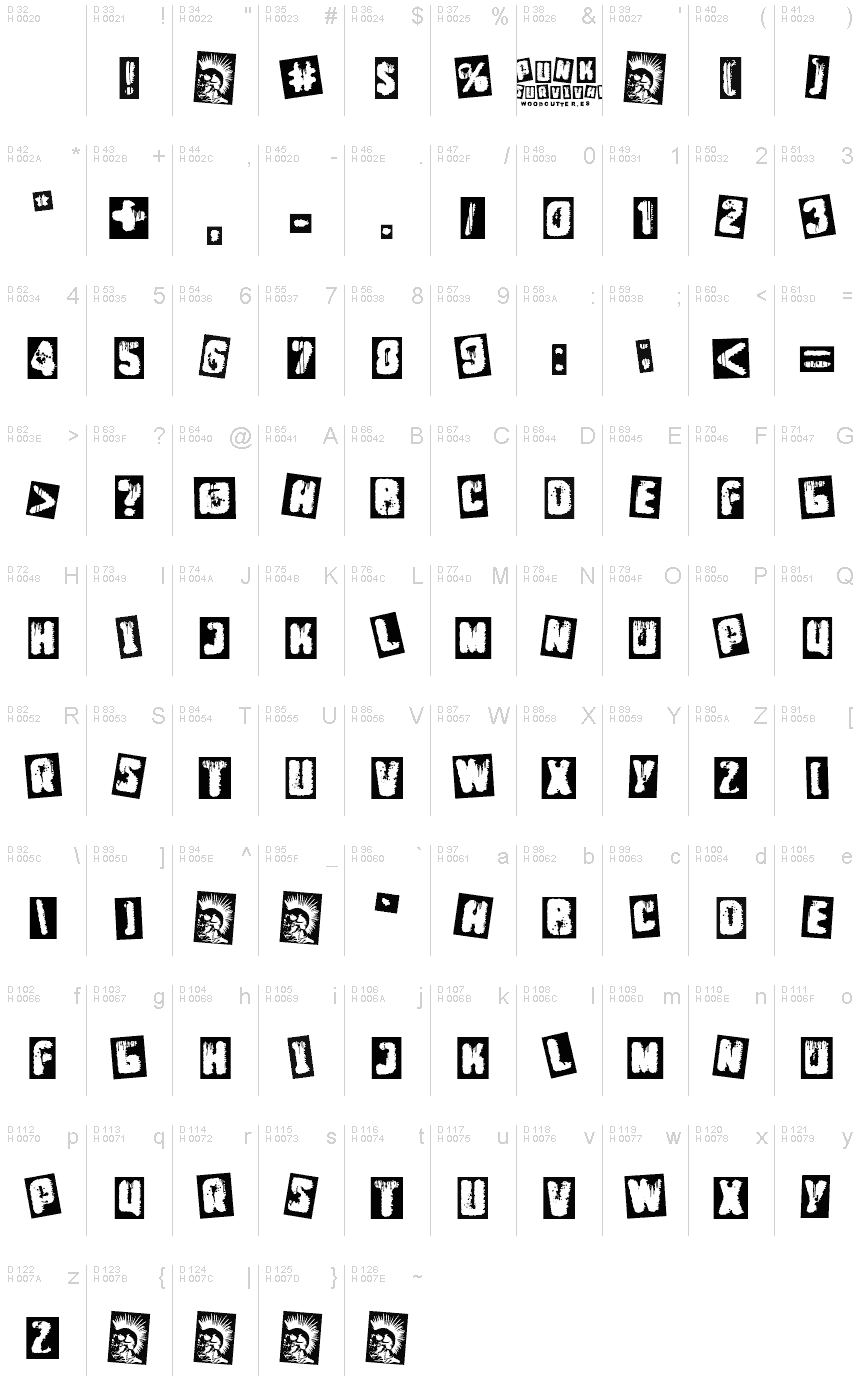
Punk Survival
"Punk Survival" is a bold, distorted display font that exudes a gritty, rebellious energy. Crafted by designer Woodcutter Manero, this typeface embraces a raw, uncompromising aesthetic, with its jagged letterforms and striking visual impact. The font's unique character lends itself well to a variety of design applications, from eye-catching headlines and logos to edgy branding and punk-inspired artwork. Its versatility makes it a compelling choice for those seeking to convey a sense of defiance, individuality, and unapologetic self-expression.
The font's bold weight and distorted style create a sense of visual tension, adding a sense of urgency and dynamism to any text. Its distinctive character makes it an excellent choice for designers and artists looking to make a bold statement, whether in the realm of music, fashion, or alternative culture.